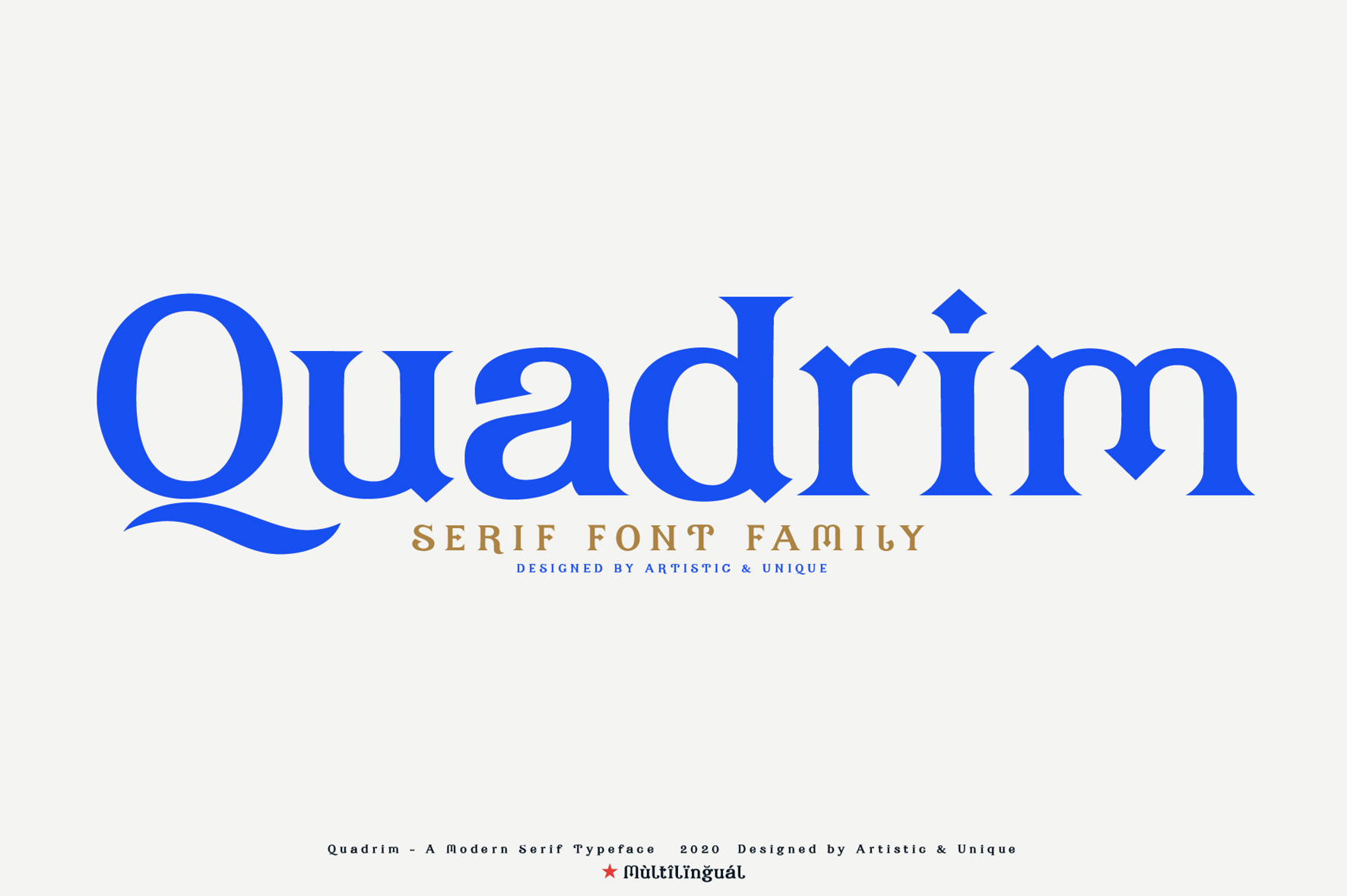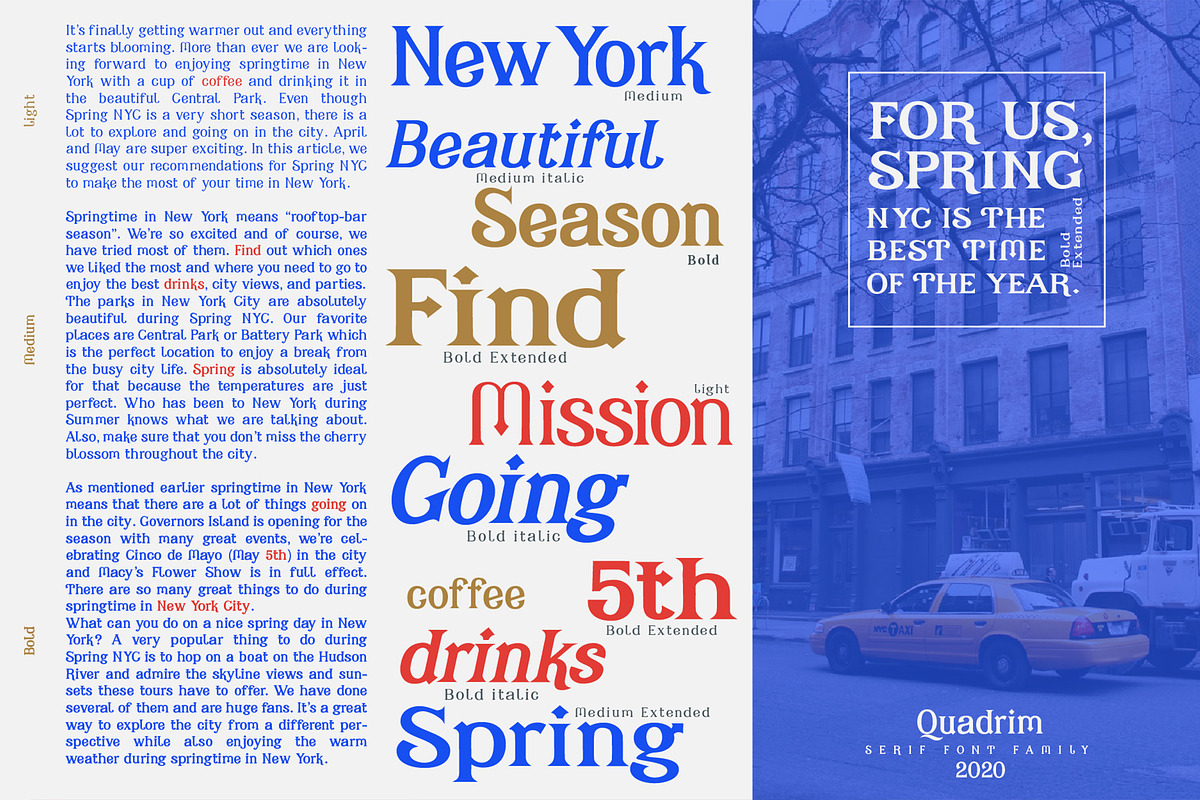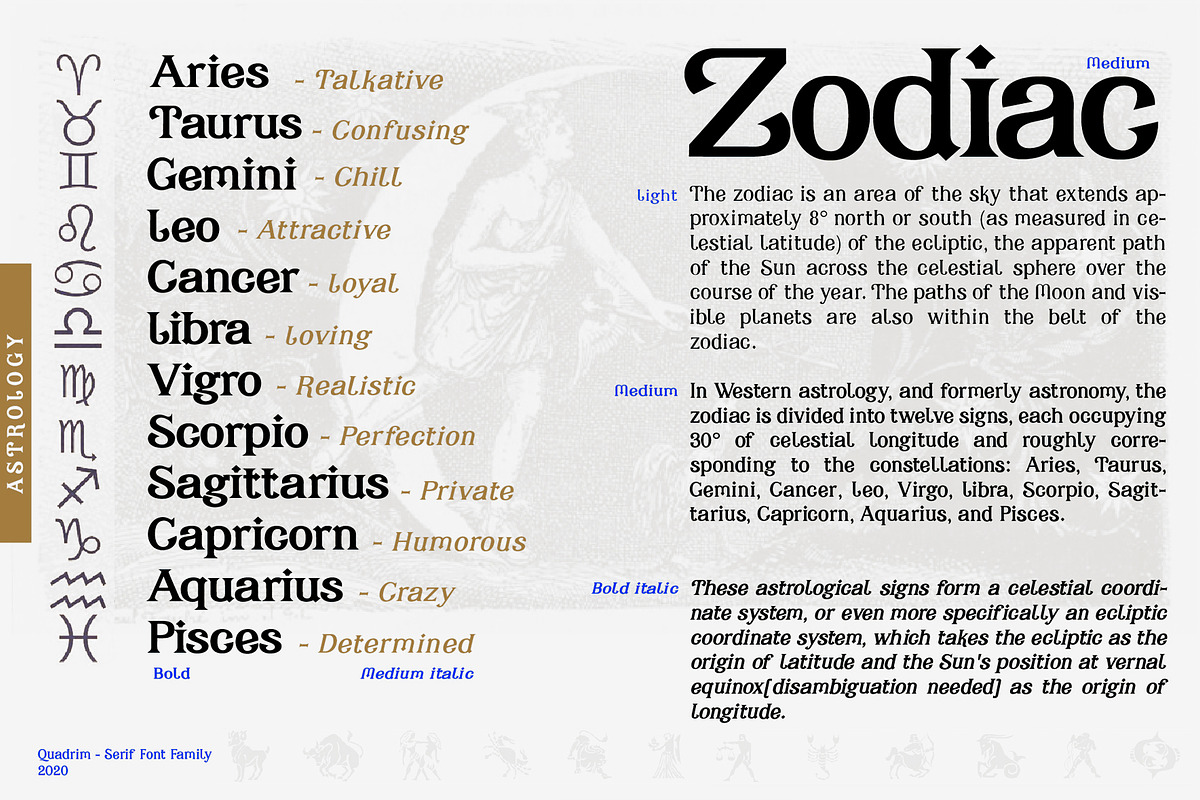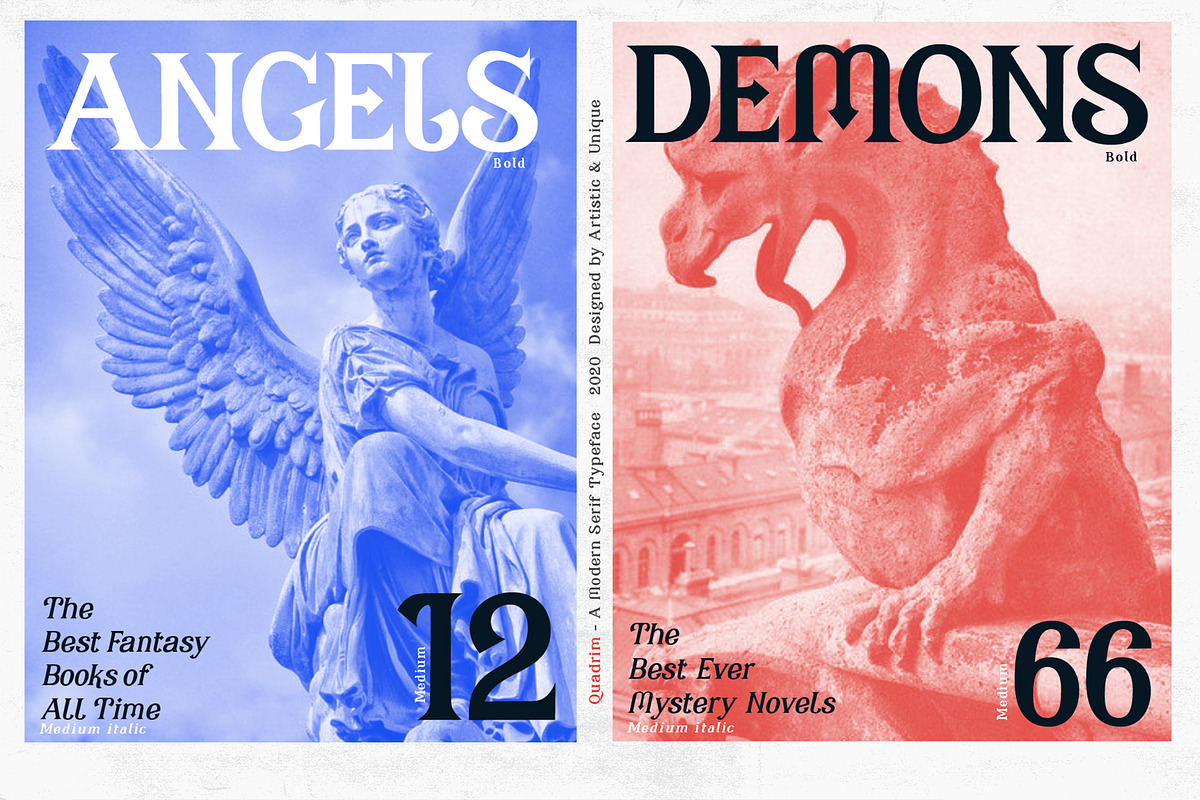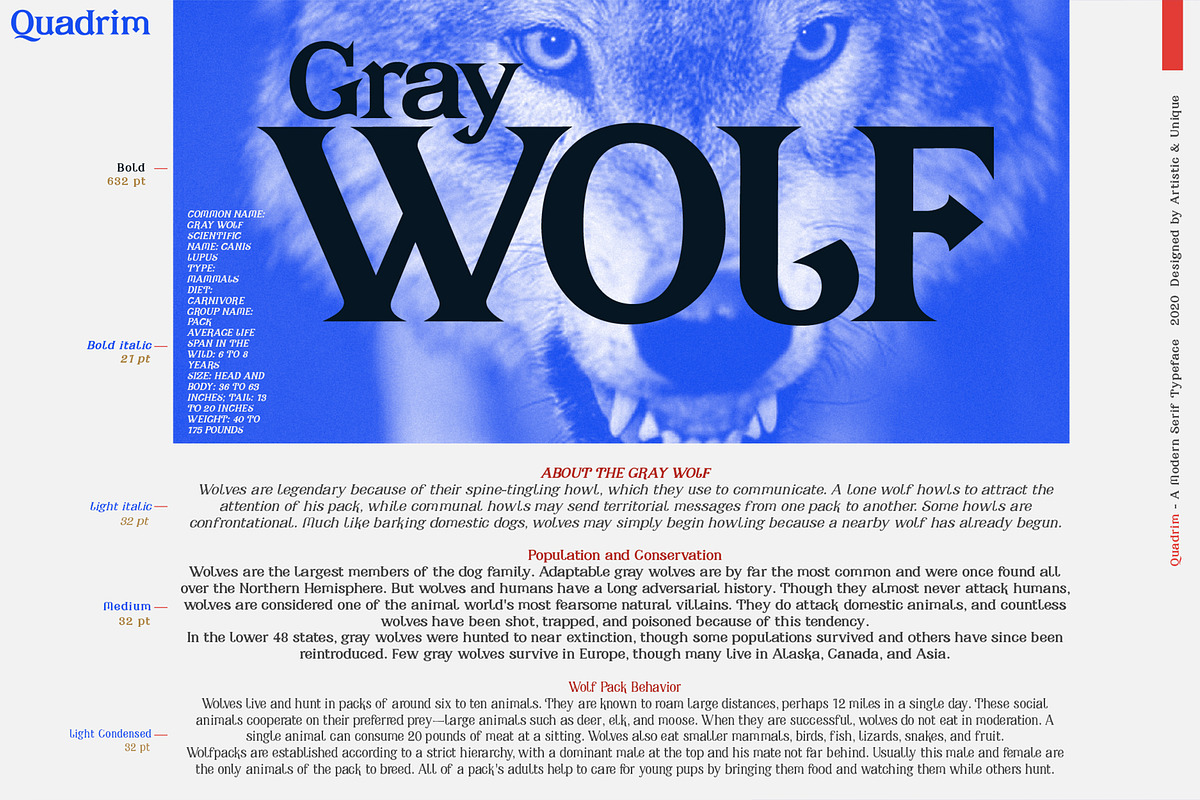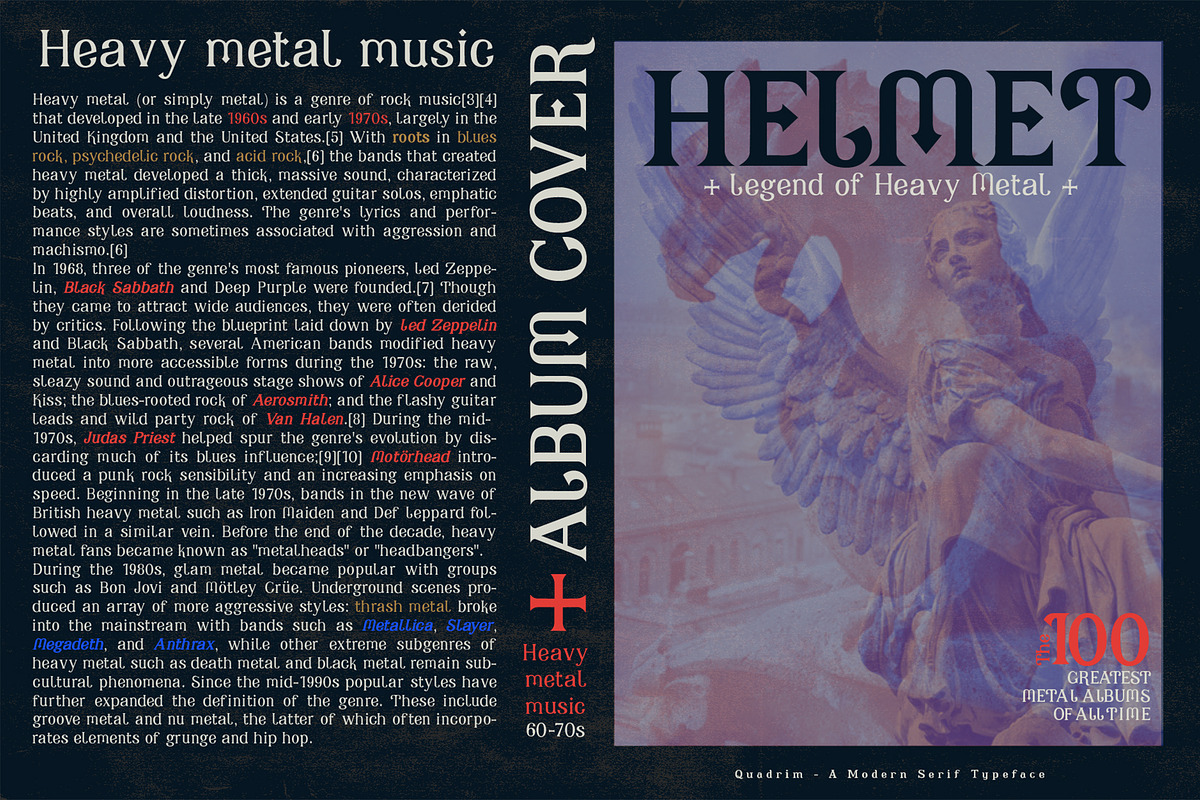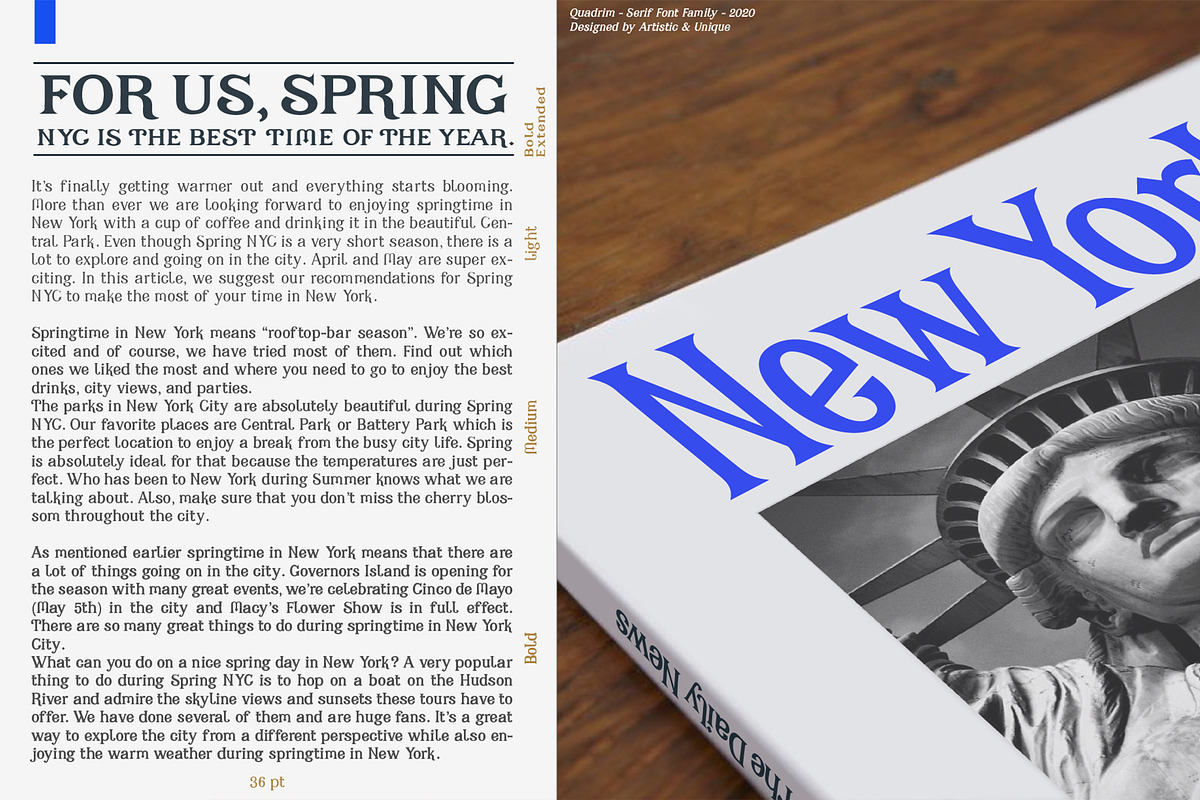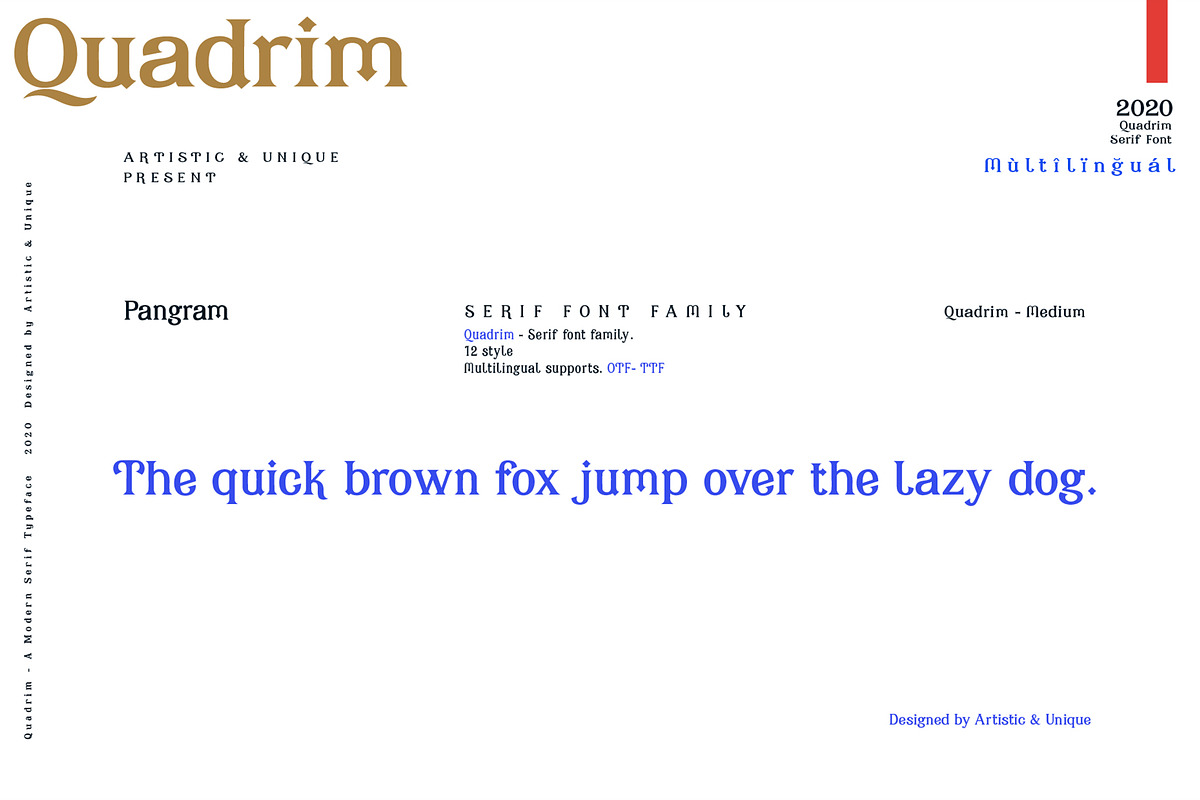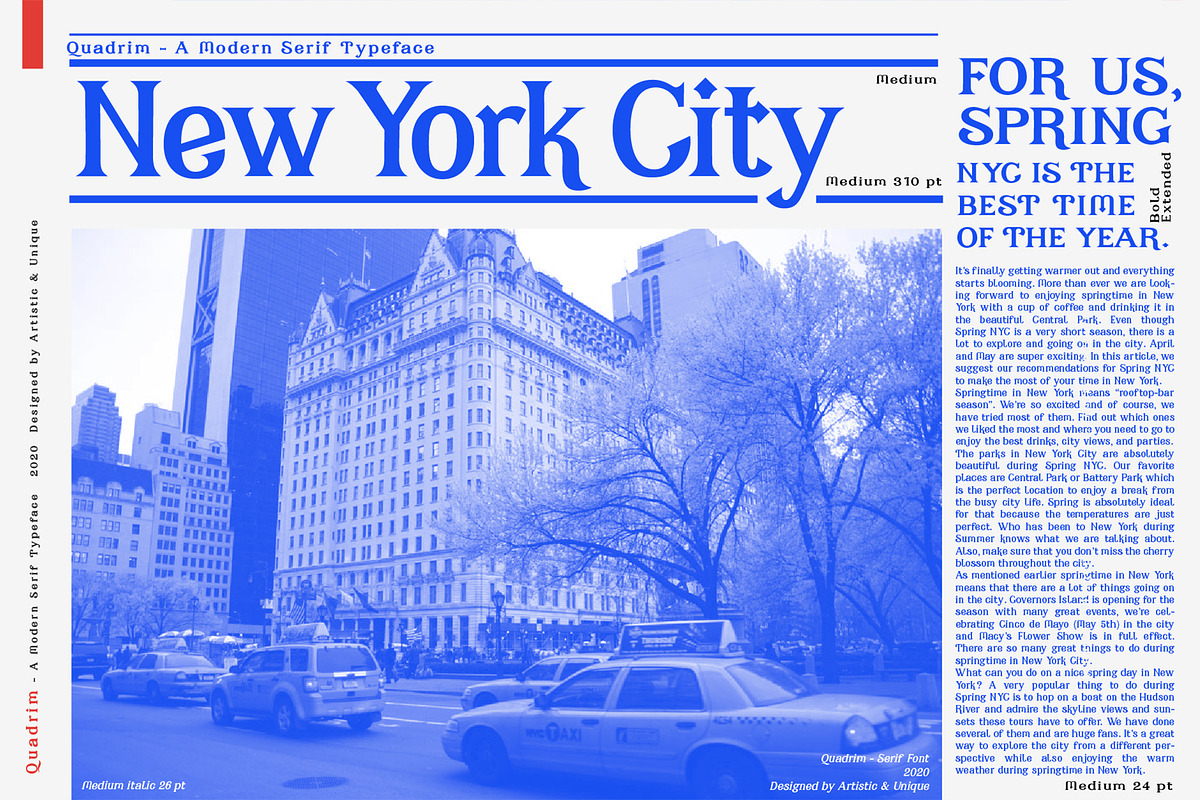
Quadrim - Serif Font Family
Quadrim - Serif Font Family - Multilingual-12 Style (2020)
On the basis of Quadrim, it is a mix of the old-fashioned Roman serif family. The old style serif combination combines, modern aesthetics with fantasy and Art Nouveau serif fonts, making Quadrim a versatile family that can be used in many different design projects.
This font offers a wide variety of styles to help you discover the best mood for your projects, from body text to large titles, from classic styles to modern and bold styles.
It is very suitable for book and magazines, magazine covers, editorial, titles, websites, logos, invitations, branding, advertising and more.
Quadrim
Light
Light italic
Light Condensed
Light Extended
Medium
Medium italic
Medium Condensed
Medium Extended
Bold
Bold italic
Bold Condensed
Bold Extended